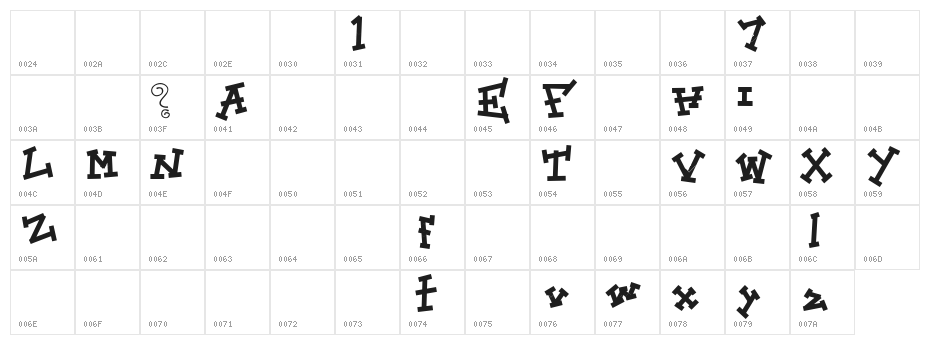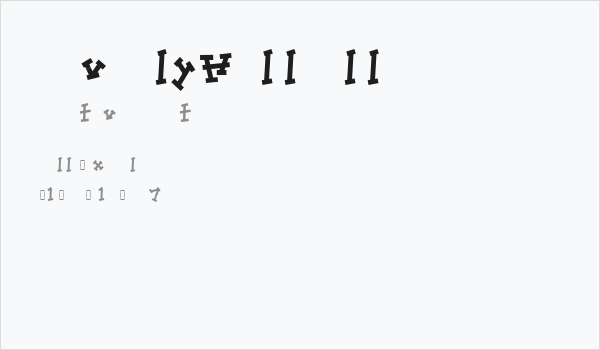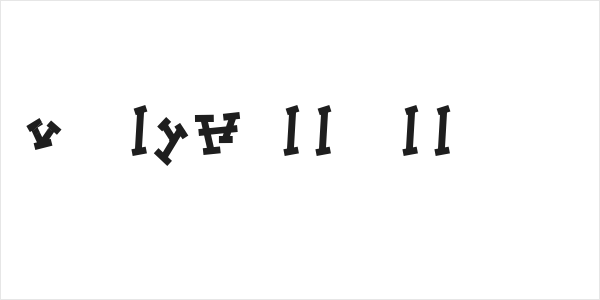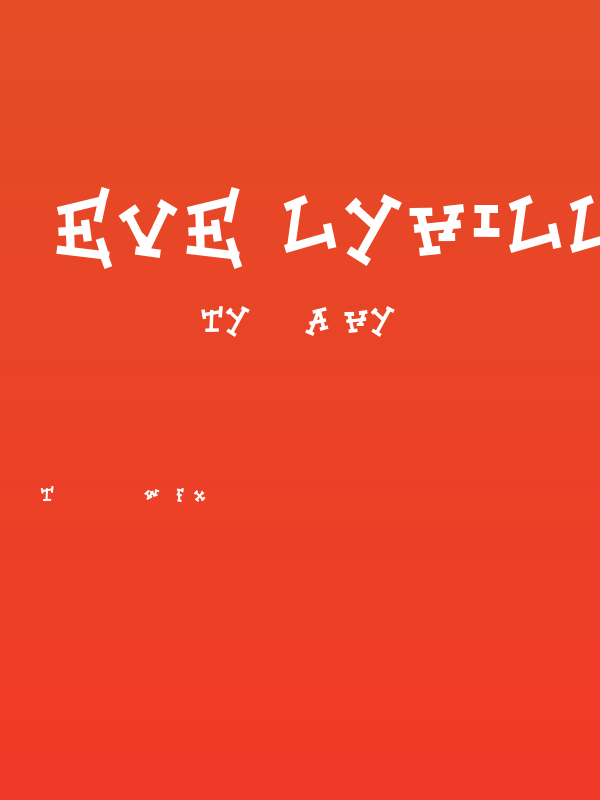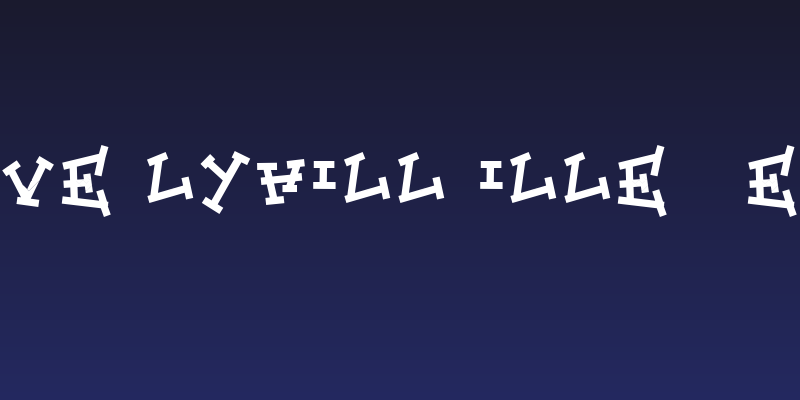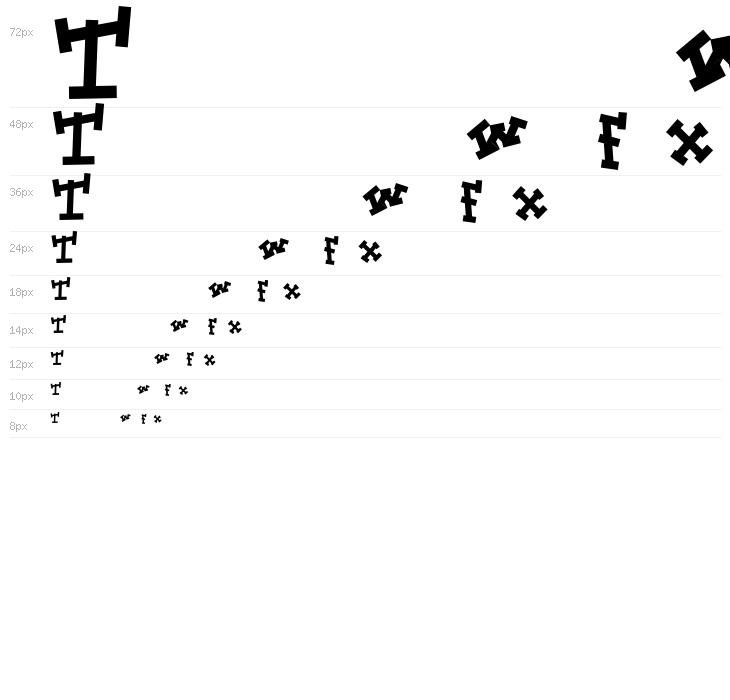
BeverlyHillbilles Demo Font
BeverlyHillbilles Demo Description
This font features a playful and quirky design, characterized by its irregular and bold letterforms. Each character has a unique, hand-drawn appearance with exaggerated serifs and varying stroke widths, giving it a whimsical and rustic feel. The letters are slightly tilted and uneven, adding to the font's charm and informal style. The overall look is reminiscent of a vintage, western-themed aesthetic, making it suitable for projects that require a touch of nostalgia or a fun, casual vibe. The numbers and special characters maintain the same playful style, ensuring consistency throughout the font.
| Overall Style | Vintage, Decorative |
| Use Case | Headlines, Posters, Logos |
| Proposed Projects | Ideal for posters, children's books, themed events, or any project needing a whimsical, vintage touch. |